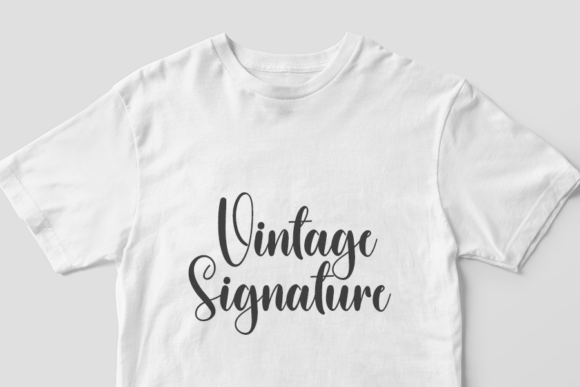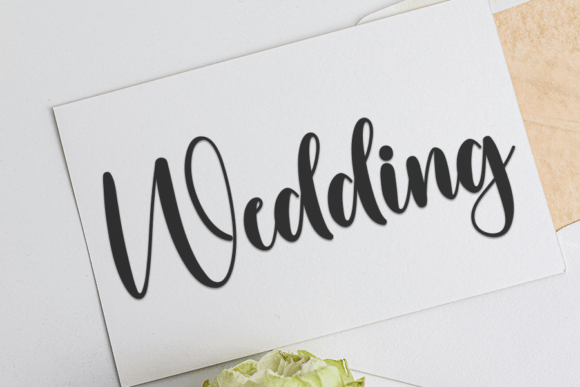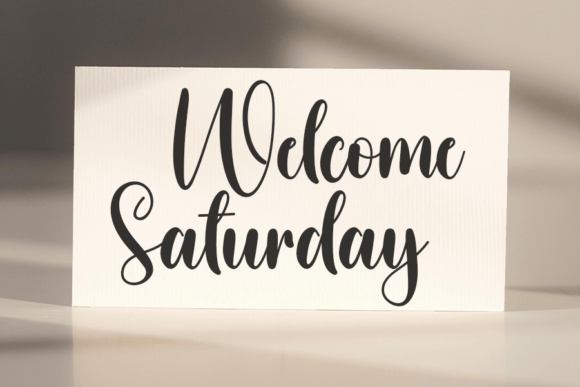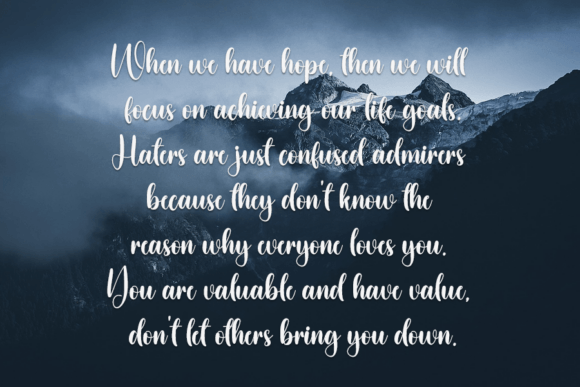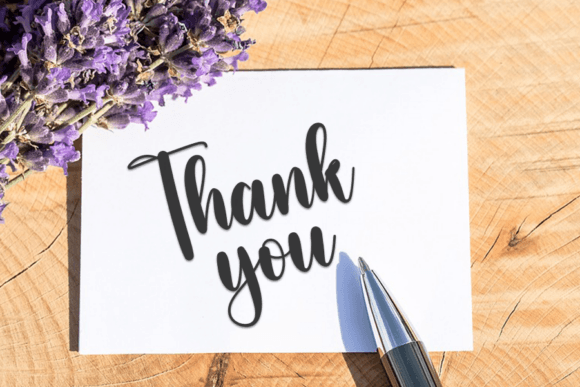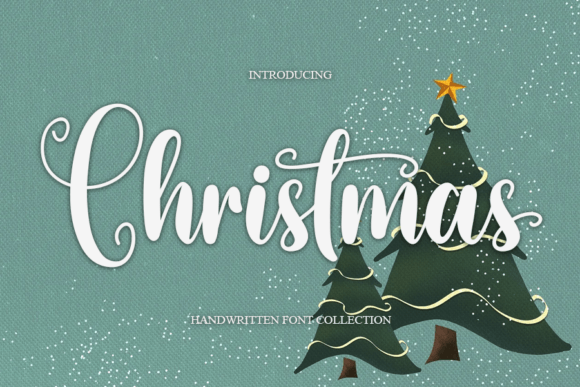
Introducing Christmas Font: A Delicate Handwritten Font for Unique Designs
Are you looking for a font that captures the essence of the holiday season? Look no further than Christmas Font, a delicate handwritten font carefully crafted for a cool and unique design. This versatile font can be used to write letters, invitations, food products, titles, and more, making it a must-have for designers and crafters alike.
The Story Behind Christmas Font
Christmas Font is a labor of love, designed to evoke the warmth and magic of the holiday season. With its intricate lines and delicate curves, this font is perfect for creating designs that are both elegant and playful. Whether you’re creating a festive holiday card, a seasonal advertisement, or a special promotion, Christmas Font is the perfect choice.
Key Features of Christmas Font
- Delicate Handwritten Style: Christmas Font features a beautiful, handwritten style that’s perfect for creating unique and eye-catching designs.
- Versatile: This font can be used for a wide range of applications, from letters and invitations to food products and titles.
- Cool and Unique Design: Christmas Font is carefully crafted to create a cool and unique design that’s sure to stand out.
- Easily Readable: Despite its delicate nature, Christmas Font is easily readable, making it perfect for body text and headlines.
Uses for Christmas Font
Christmas Font is incredibly versatile, and can be used for a wide range of applications, including:
- Holiday Cards and Invitations: Create beautiful and unique holiday cards and invitations that will stand out from the crowd.
- Food Products: Use Christmas Font to create labels and packaging for holiday food products, such as cookies, candies, and chocolates.
- Titles and Headlines: Add a touch of elegance and sophistication to your titles and headlines with Christmas Font.
- Seasonal Advertisements: Create eye-catching seasonal advertisements that will grab the attention of your customers.
- Crafting and Scrapbooking: Use Christmas Font to add a personal touch to your crafting and scrapbooking projects.
Tips for Using Christmas Font
Here are a few tips for getting the most out of Christmas Font:
- Use it Sparingly: While Christmas Font is beautiful, it can be overwhelming if used too much. Use it sparingly to create a sense of elegance and sophistication.
- Pair it with Other Fonts: Experiment with pairing Christmas Font with other fonts to create a unique and eye-catching design.
- Adjust the Size and Color: Adjust the size and color of Christmas Font to create a design that’s tailored to your needs.
- Is Christmas Font easy to read?: Yes, despite its delicate nature, Christmas Font is easily readable, making it perfect for body text and headlines.